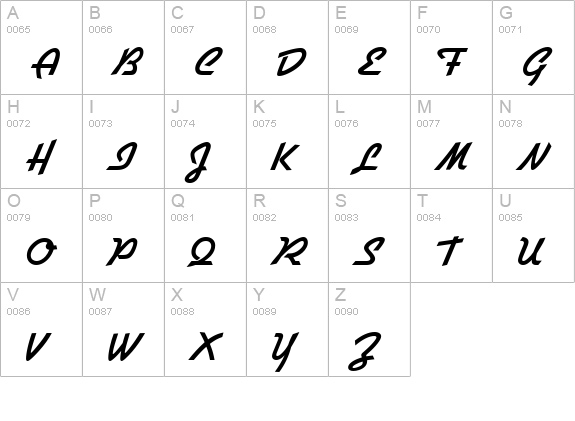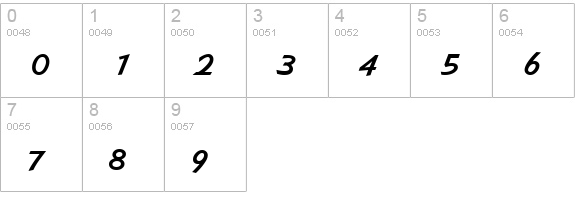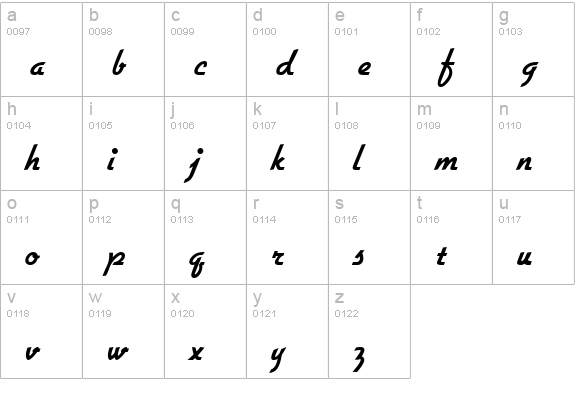
Giulio-Bold is a strong, high-contrast variant in the Giulio typeface family \xE2\x80\x94 well suited to headlines, attention-grabbing titles, and strong calls-to-action.
Giulio-Bold is a stunning and modern font that exudes confidence and sophistication. With its bold and striking appearance, Giulio-Bold is the perfect choice for adding a touch of elegance to your designs. Whether you're working on a logo, branding materials, or any other project that requires a strong and impactful typeface, Giulio-Bold is sure to make a lasting impression. The best part is that Giulio-Bold is available for free download at FontsMarket.com. This means you can easily access this beautiful font and use it in your projects without any cost. Don't miss out on the opportunity to enhance your designs with the timeless beauty of Giulio-Bold. Download it today and elevate your creations to new heights!